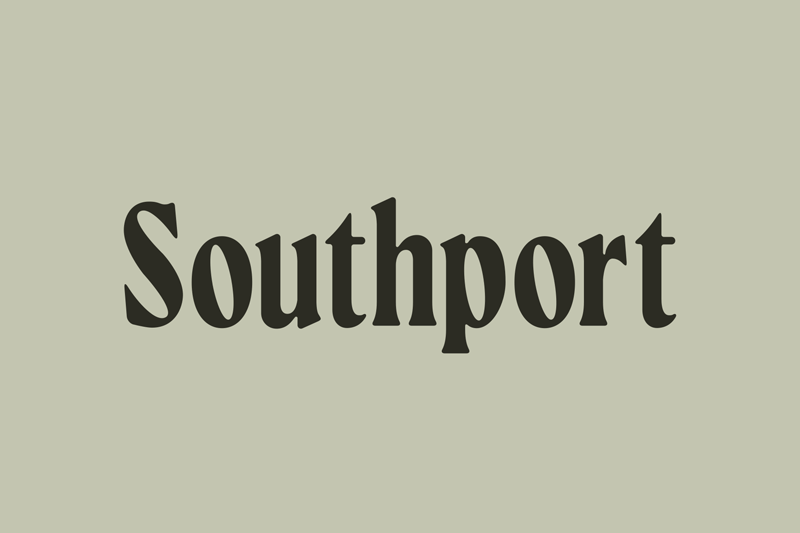
Southport is an elegant, hand-crafted serif font with a warm and familiar feel. This font is a great fit for high-end branding, logo designs, magazines, product packaging & invitations. Buy the full version here: https://creativemarket.com/sgmnt/11005900-Southport |